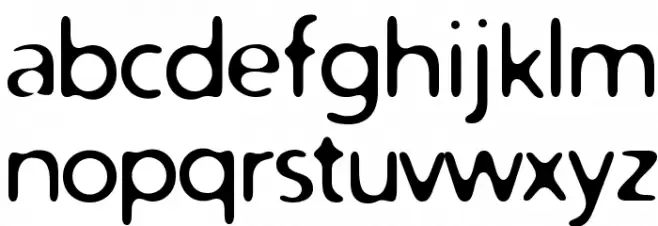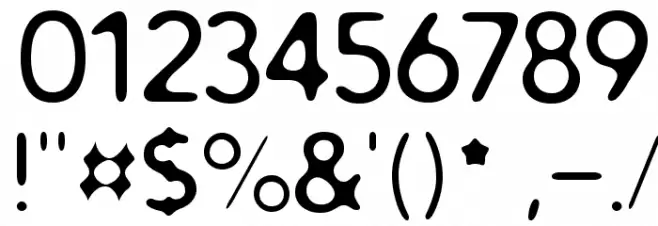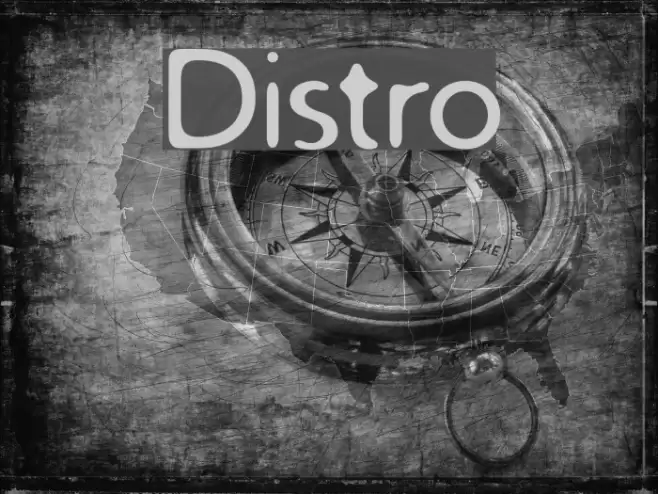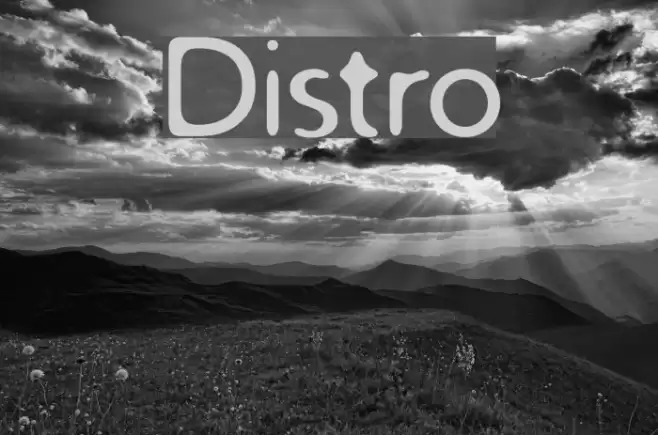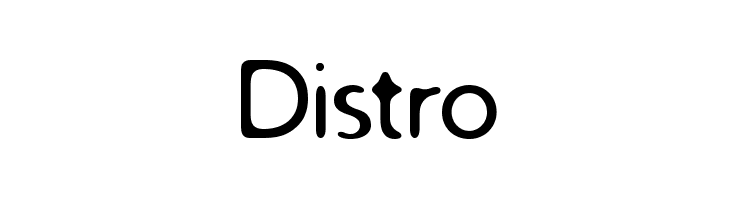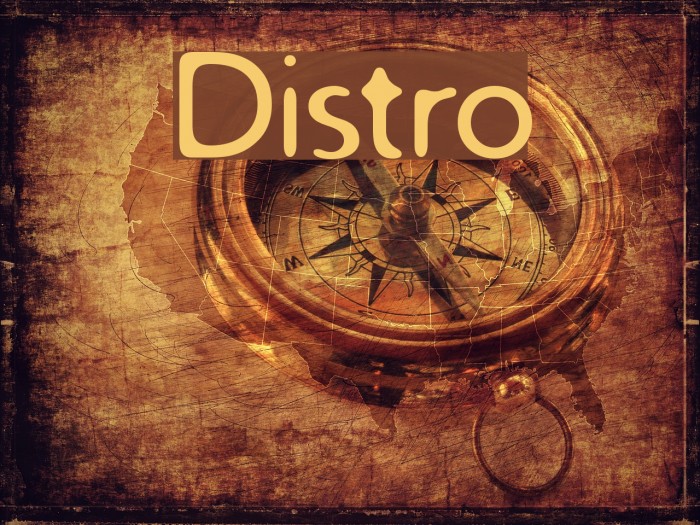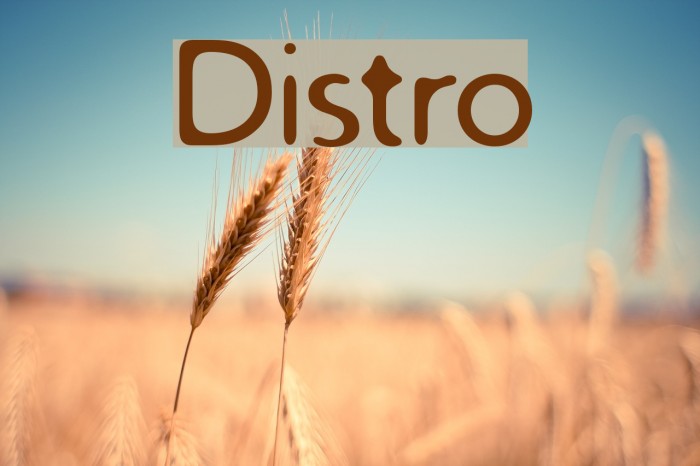
Distro
This font features a playful and rounded design, characterized by its smooth curves and consistent stroke width. The letters have a friendly and approachable appearance, making it suitable for informal and creative projects. The uppercase and lowercase letters maintain a uniform style, with slightly exaggerated curves that add to its whimsical nature. The numerals and special characters follow the same rounded aesthetic, ensuring a cohesive look across all elements. This font's unique style is both eye-catching and versatile, ideal for projects that require a touch of personality and fun.
A playful, rounded font with smooth curves and a friendly appearance.
- Proposed Projects: Children's books, playful branding, creative posters, and informal invitations.
- Overall Style: Playful
- Use Case: Headlines, Logos, Posters